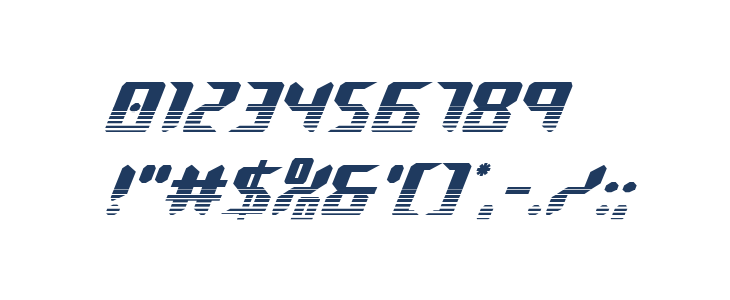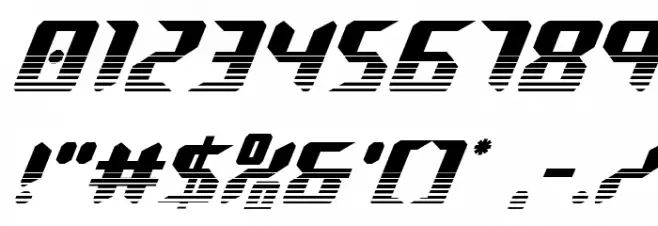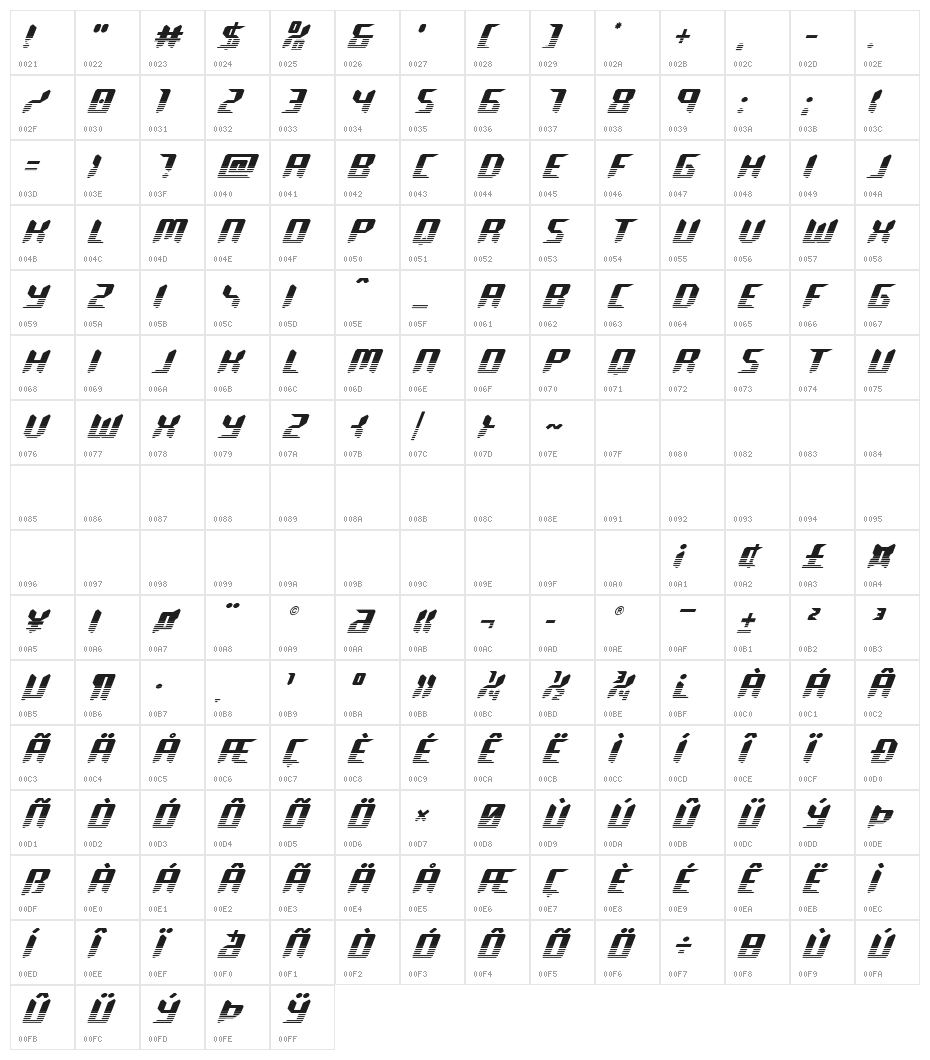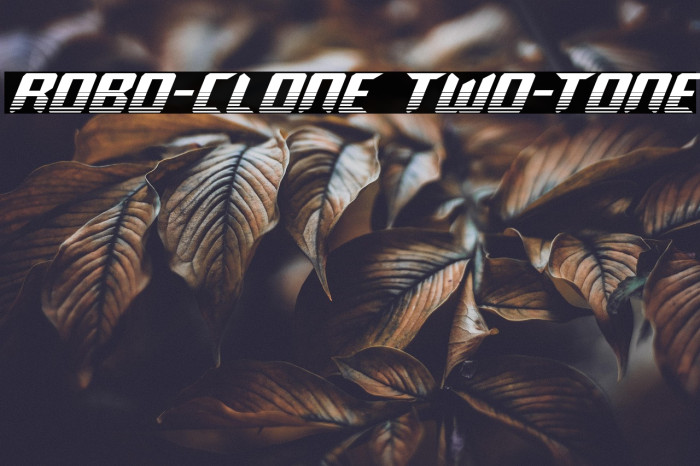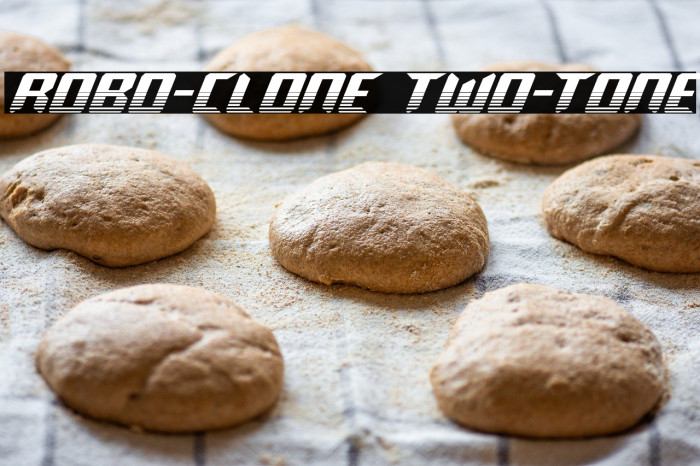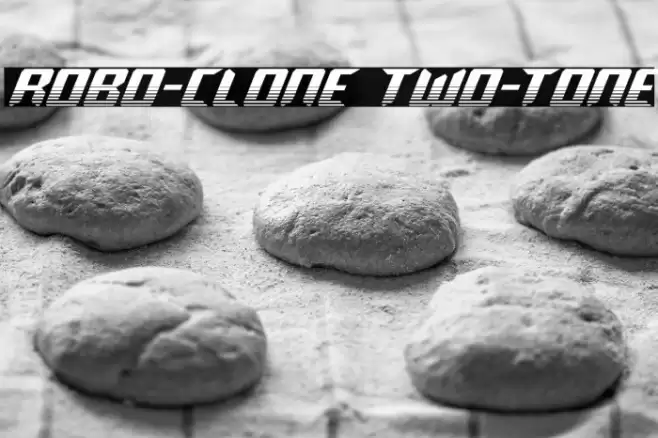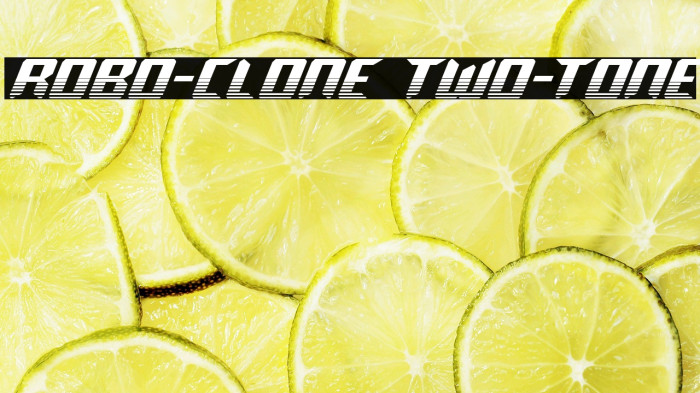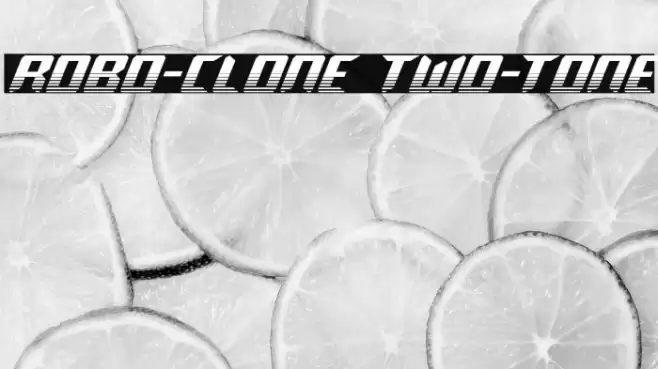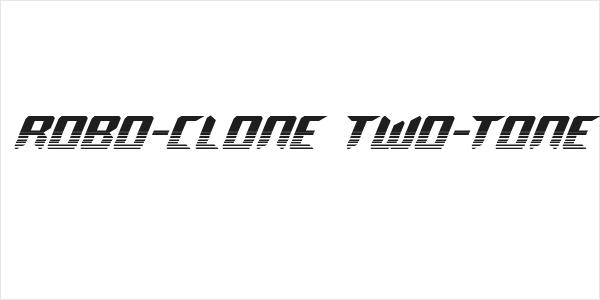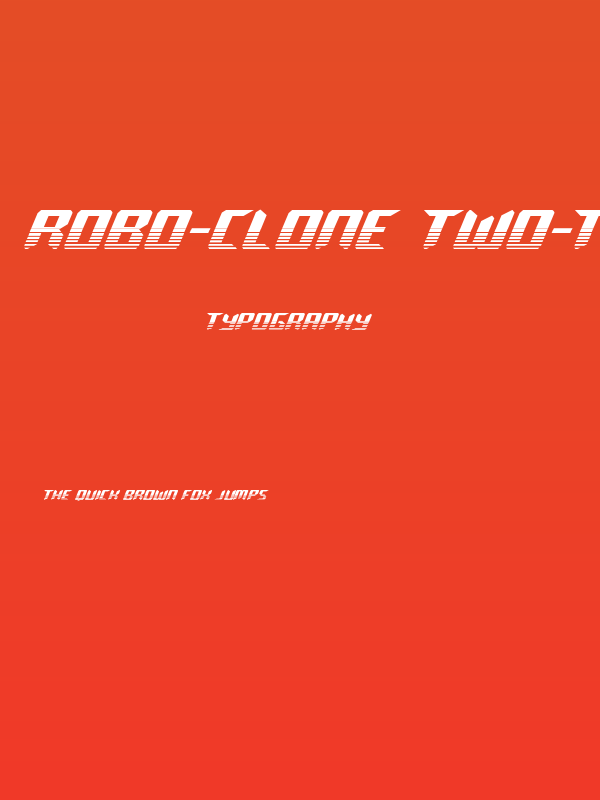
Robo-Clone Two-Tone Font
Robo-Clone Two-Tone Description
This futuristic and dynamic font features a distinctive two-tone design with horizontal stripes cutting through each character, creating a sense of movement and speed. The uppercase and lowercase letters, as well as numbers and special characters, maintain a consistent style that emphasizes angular and geometric shapes. The bold, forward-slanting characters give it a modern, tech-inspired look, making it ideal for projects that require a cutting-edge aesthetic. The font's unique style is both eye-catching and versatile, suitable for a range of creative applications.
| Proposed Projects | Ideal for technology branding, sci-fi movie posters, video game titles, and innovative product packaging. |